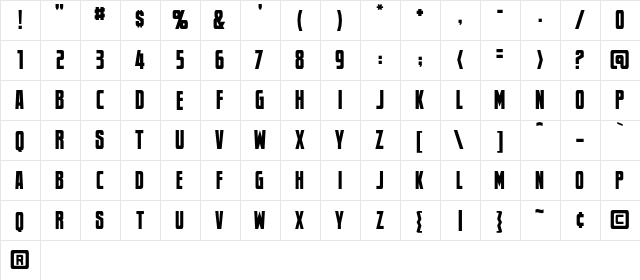
Newsflash BB Regular
| Foundry | Nate Piekos - Blambot.com |
| Designer | Nate Piekos - Blambot.com |
Design Context for Newsflash BB Typeface
Newsflash BB takes a measured approach to typography — its balanced proportions and neutral character make it a reliable workhorse for both digital and print work.